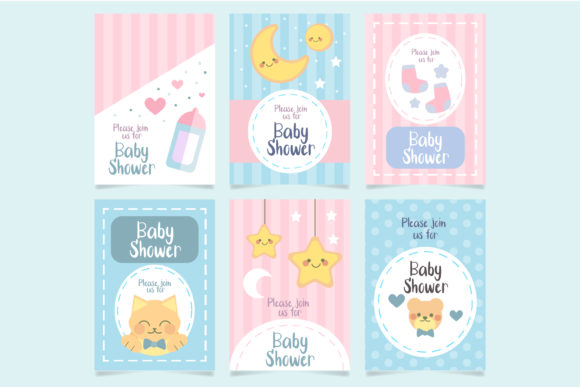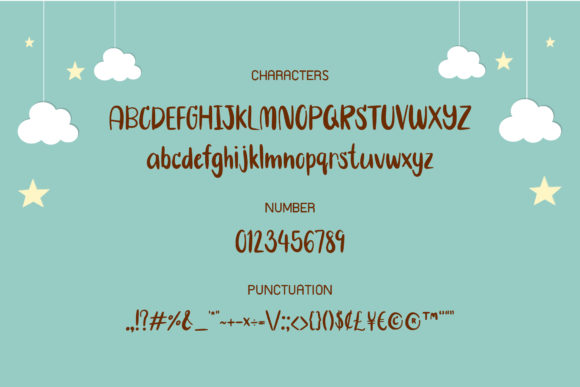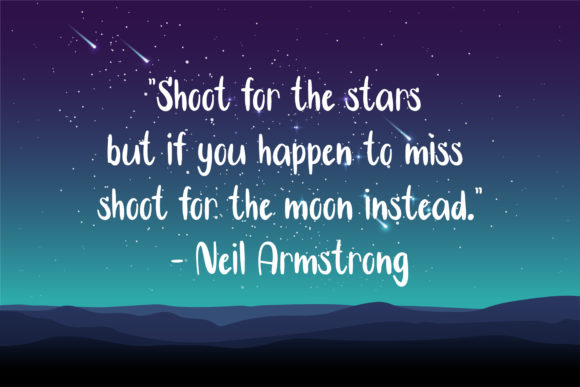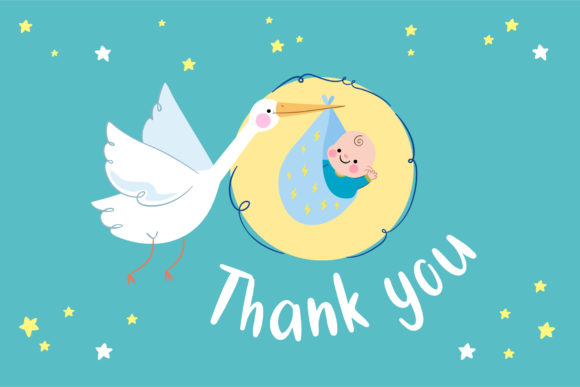
Little Star Font
About Little Star Font
Little Star is a cute and friendly handwritten font. A little bit quirky and playful, Little Star will brighten up any kids and school project you look to design!